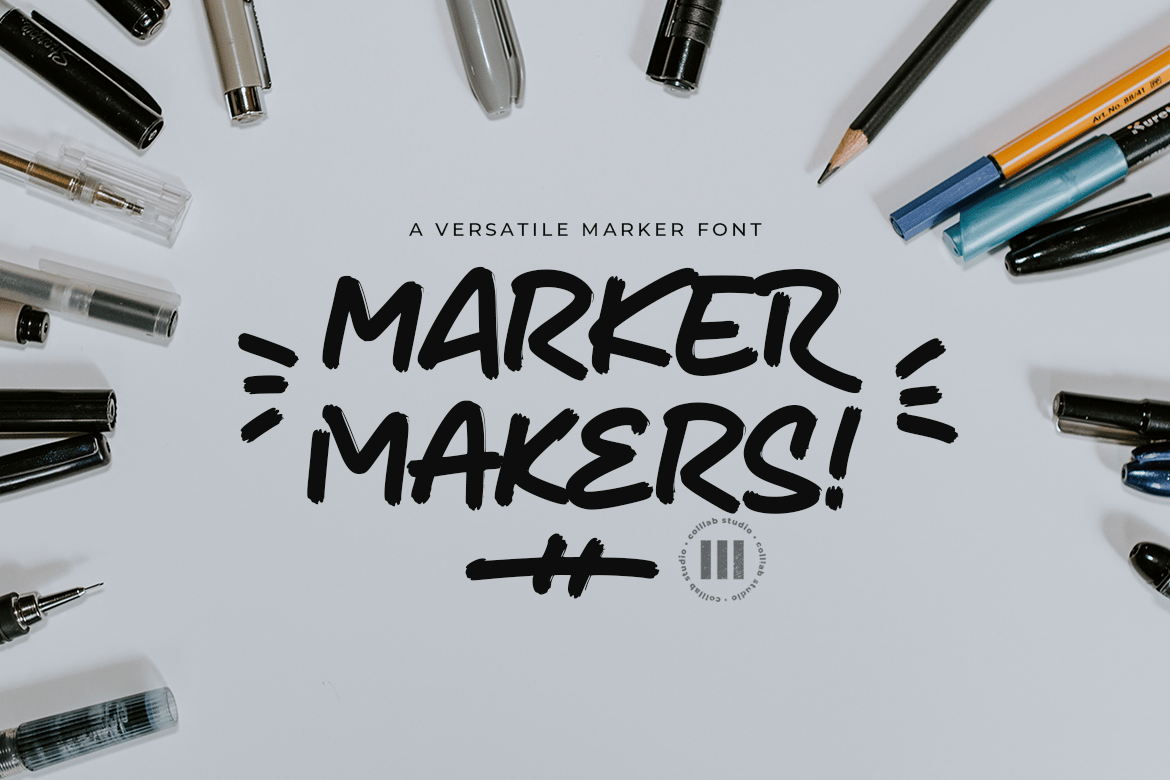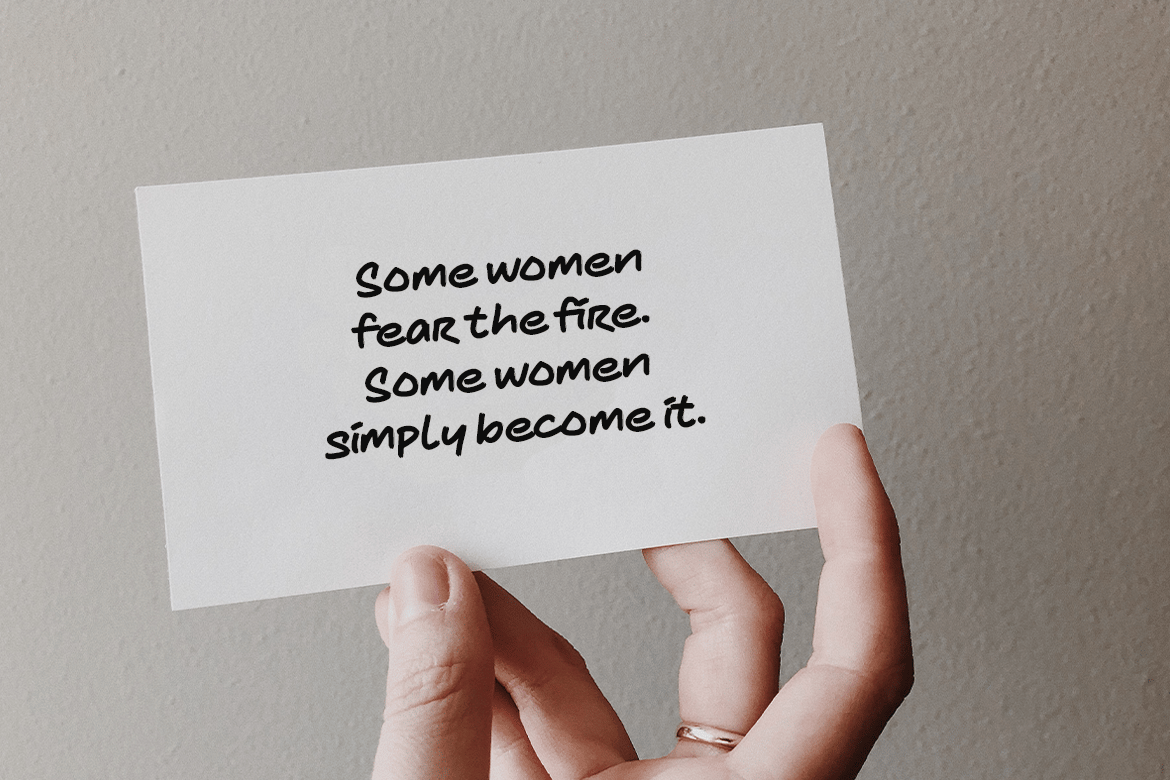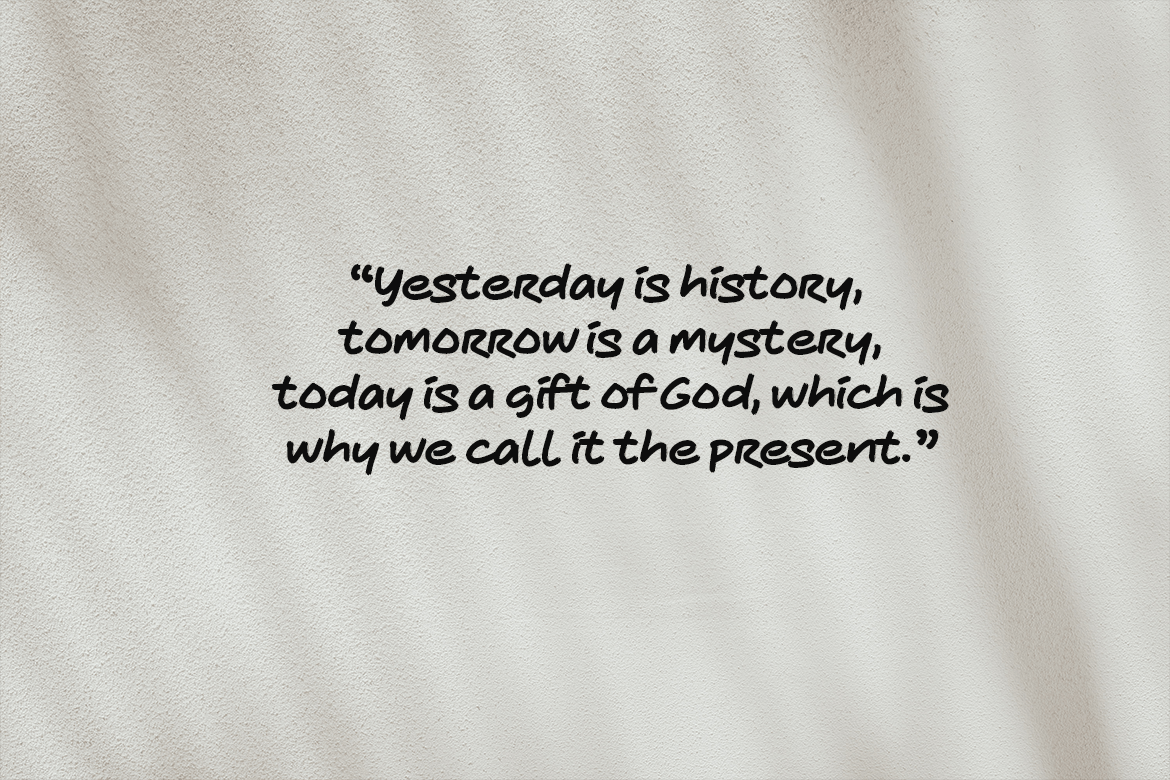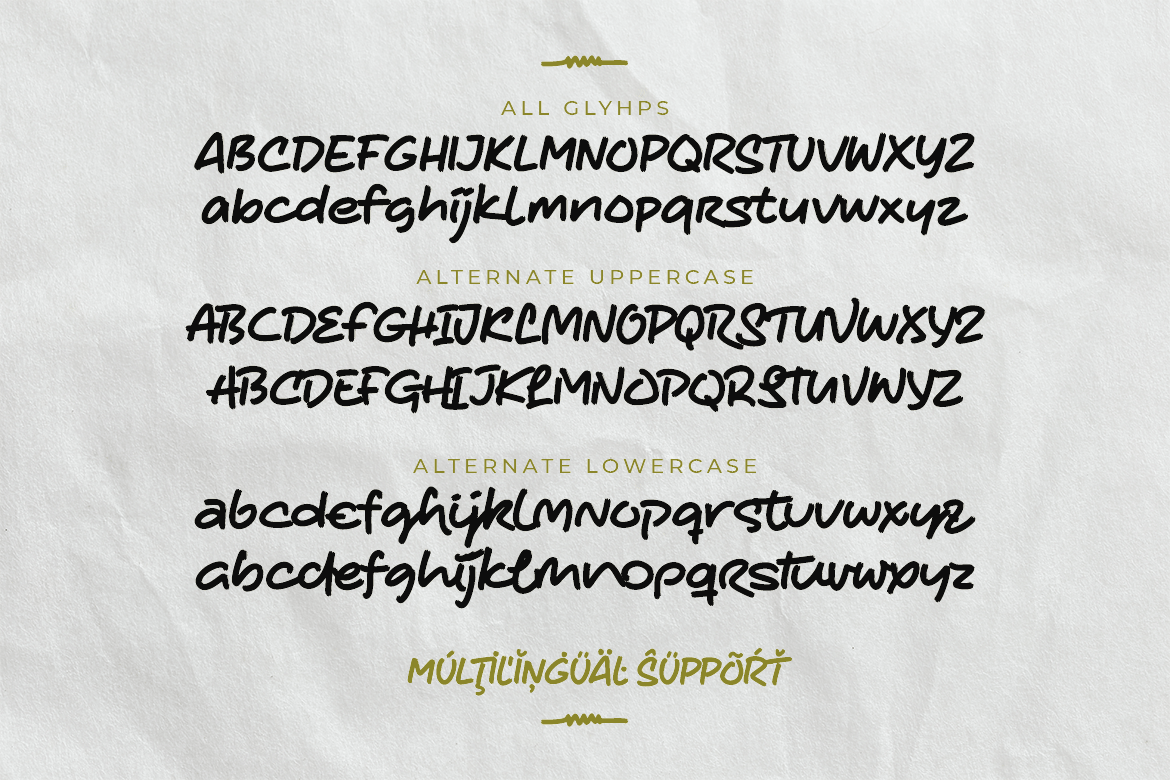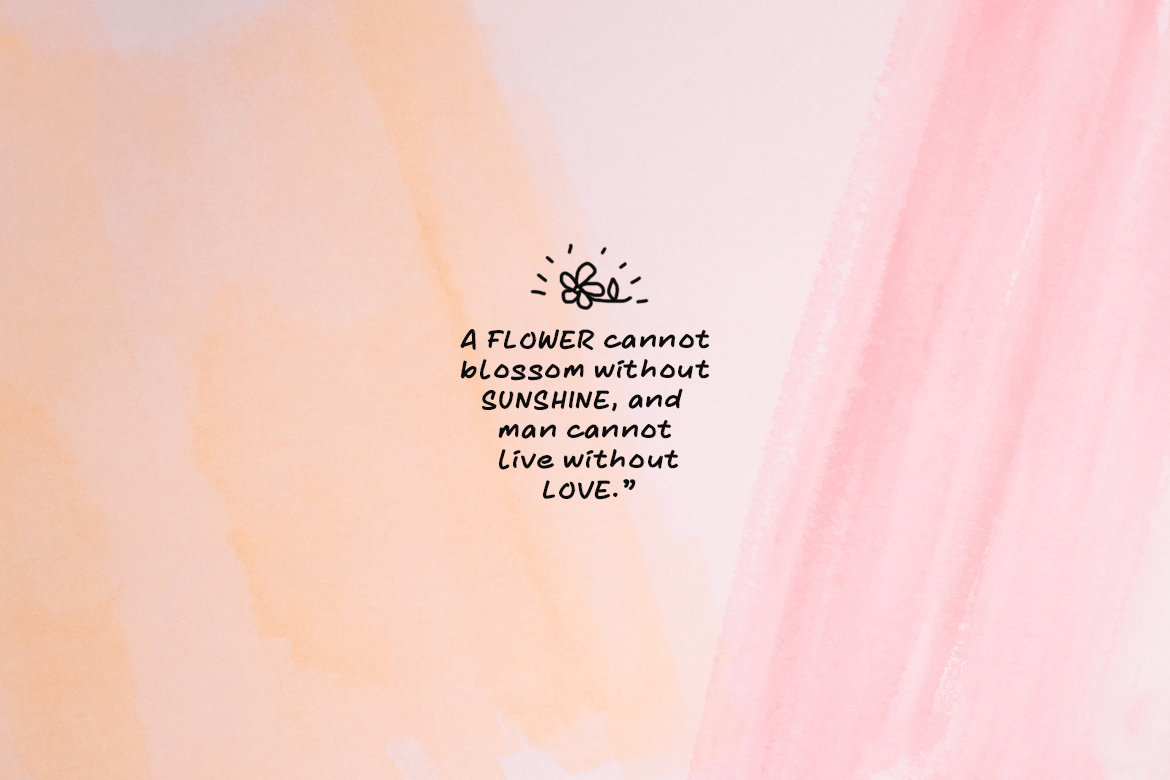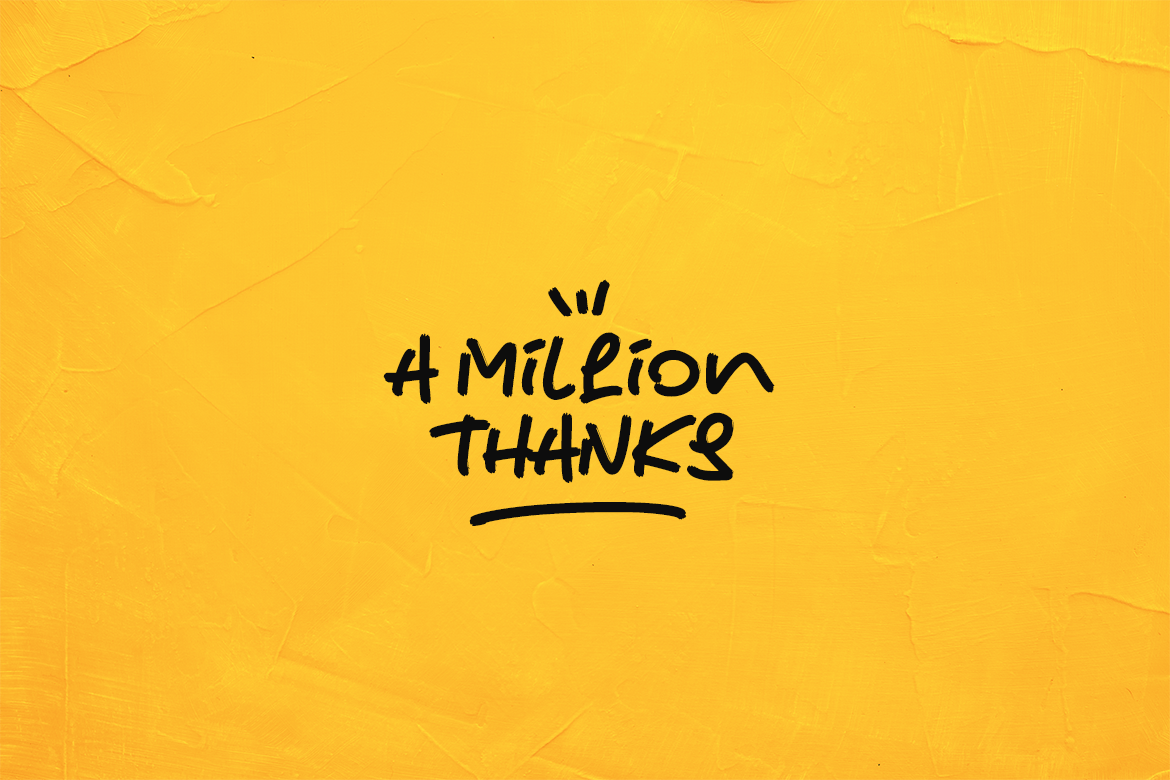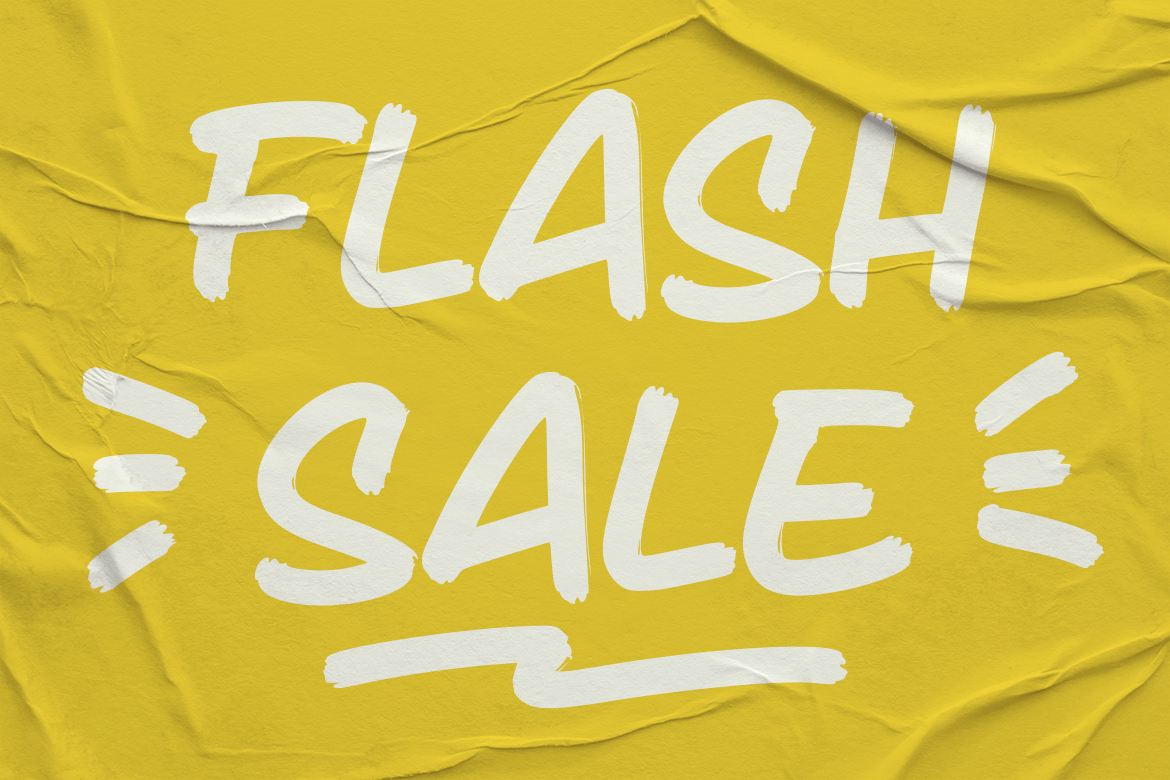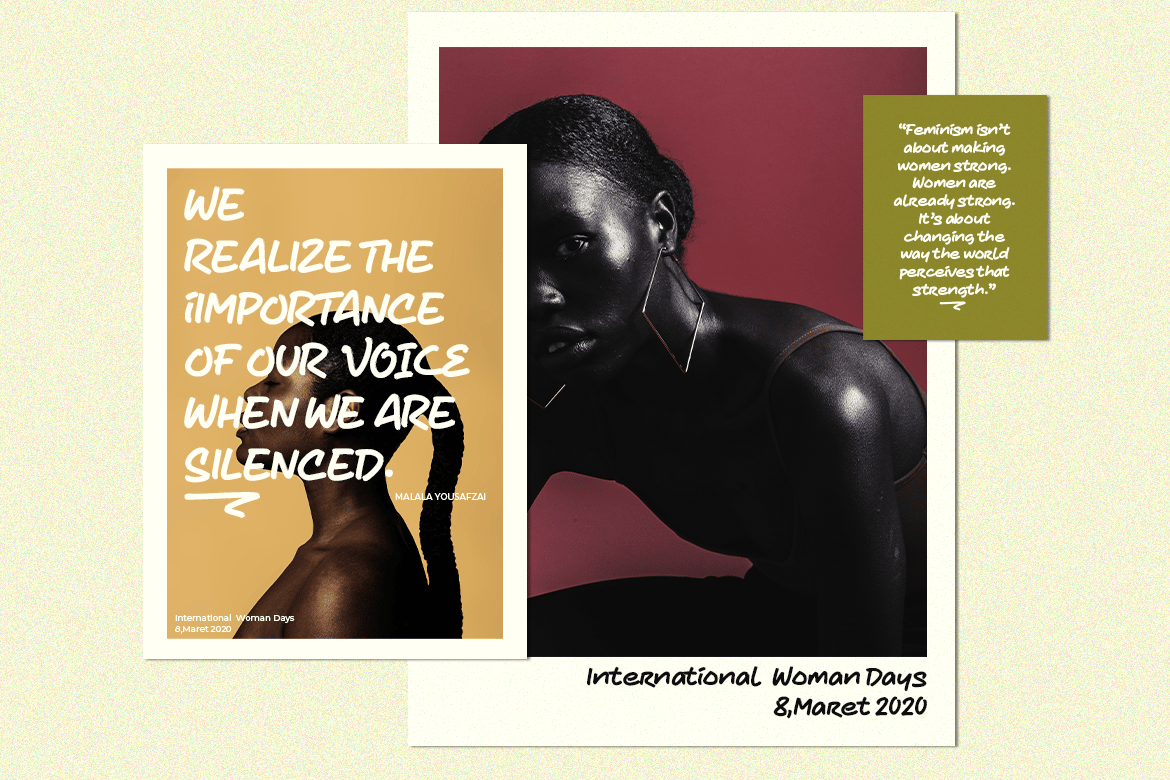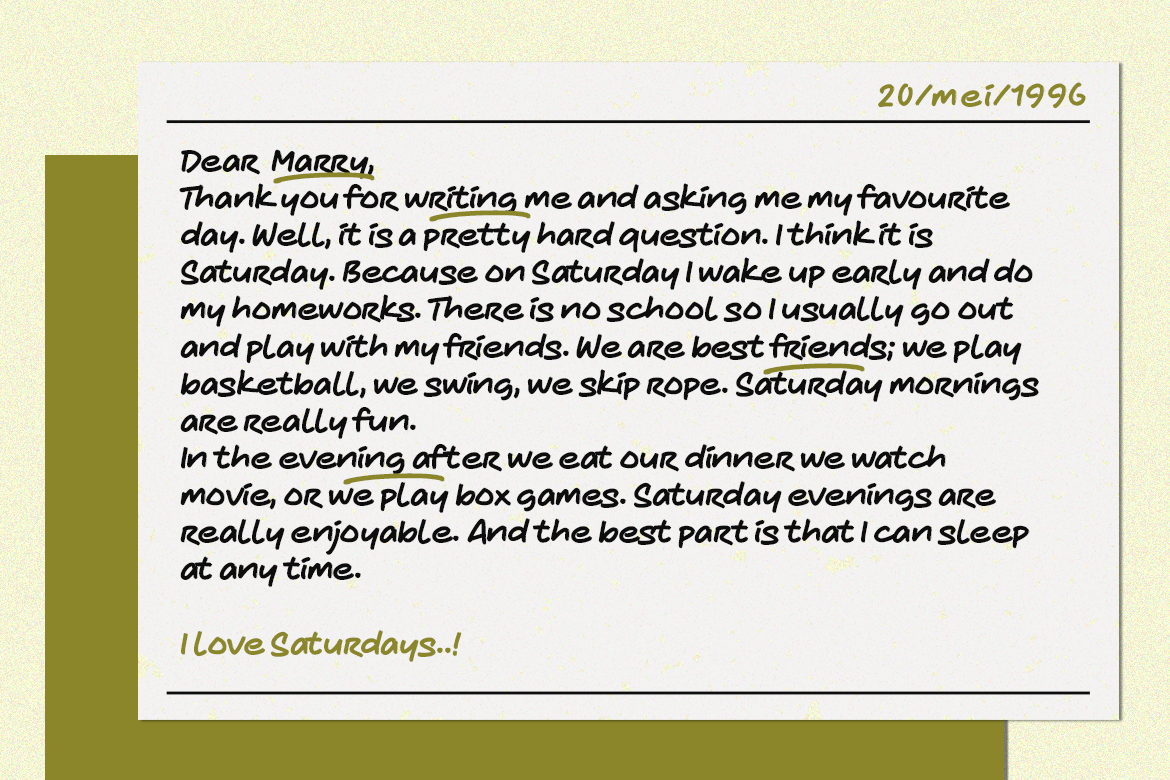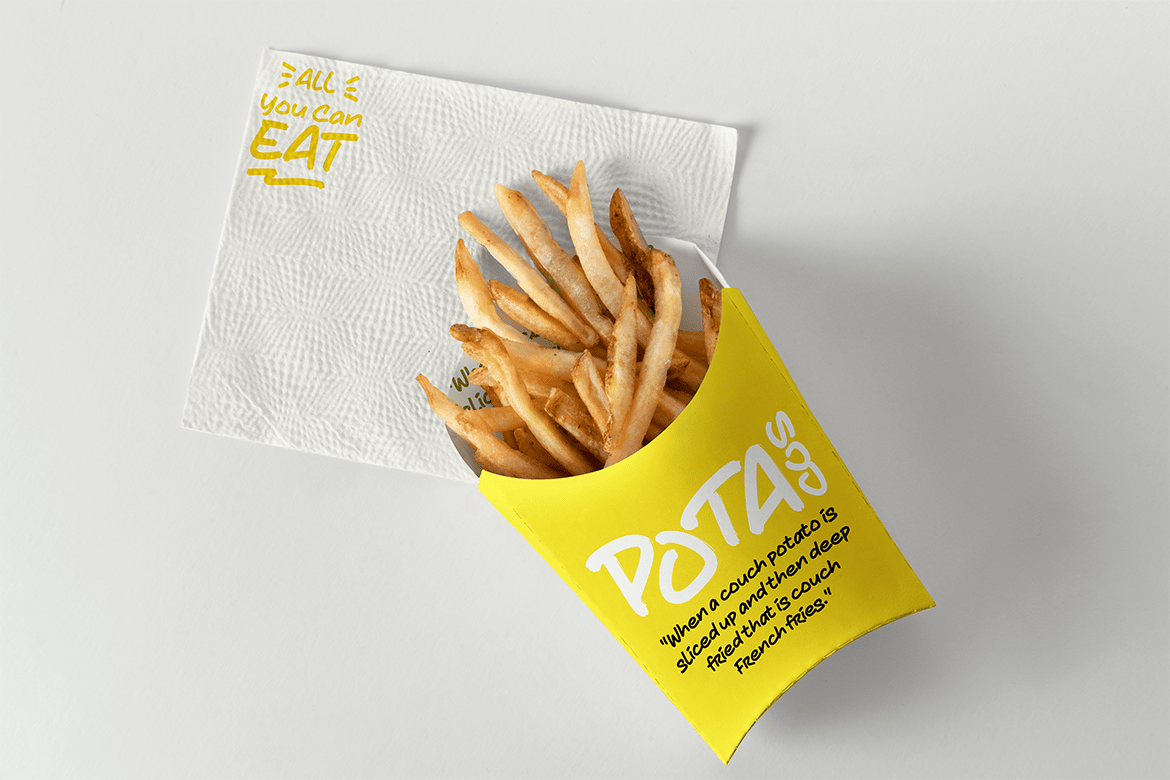
Marker Makers – A Stunning Marker Font
Marker Makers is a casual marker font that is suitable for design projects; casual theme, logo, branding, poster, quotes, display, beautiful stationary art, eye-catching social media posts, greeting cards, and any other designs.
More Alternates
Some Swashes
Full uppercase and lowercase glyphs
Numbers, punctuations, and symbols